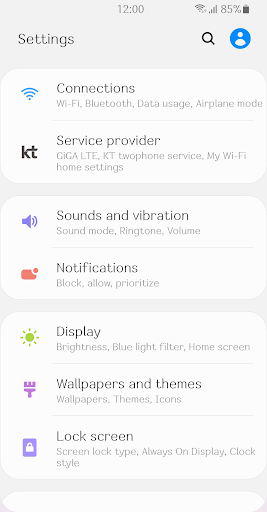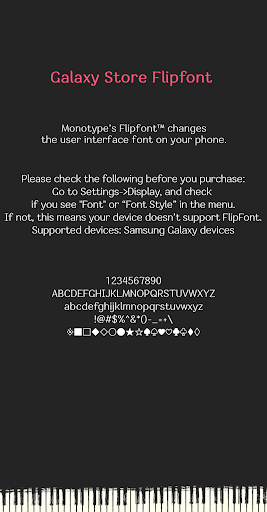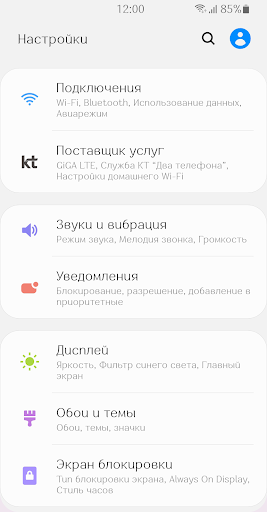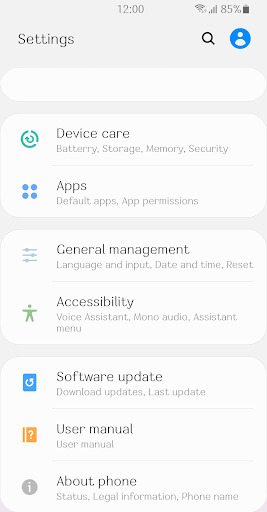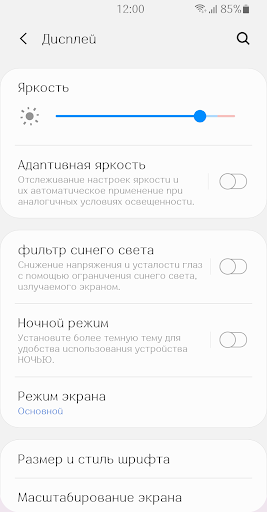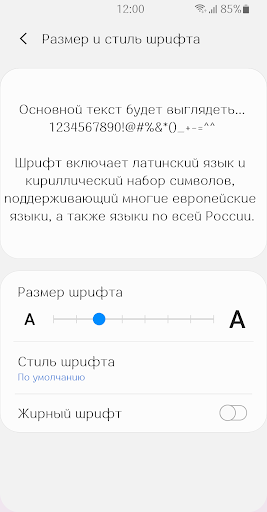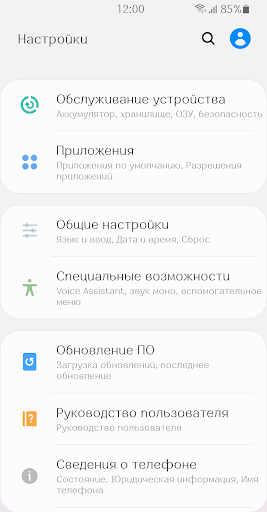
Fine Arpegio
This font has a comfortable and stable structure that is advantageous for writing.
Even thickness and restrained serif have classic and modern sensibility.
Your soft curves and rhythmic appearance were an interesting pleasure for everyone.
Fill me with beauty. Arpegio.